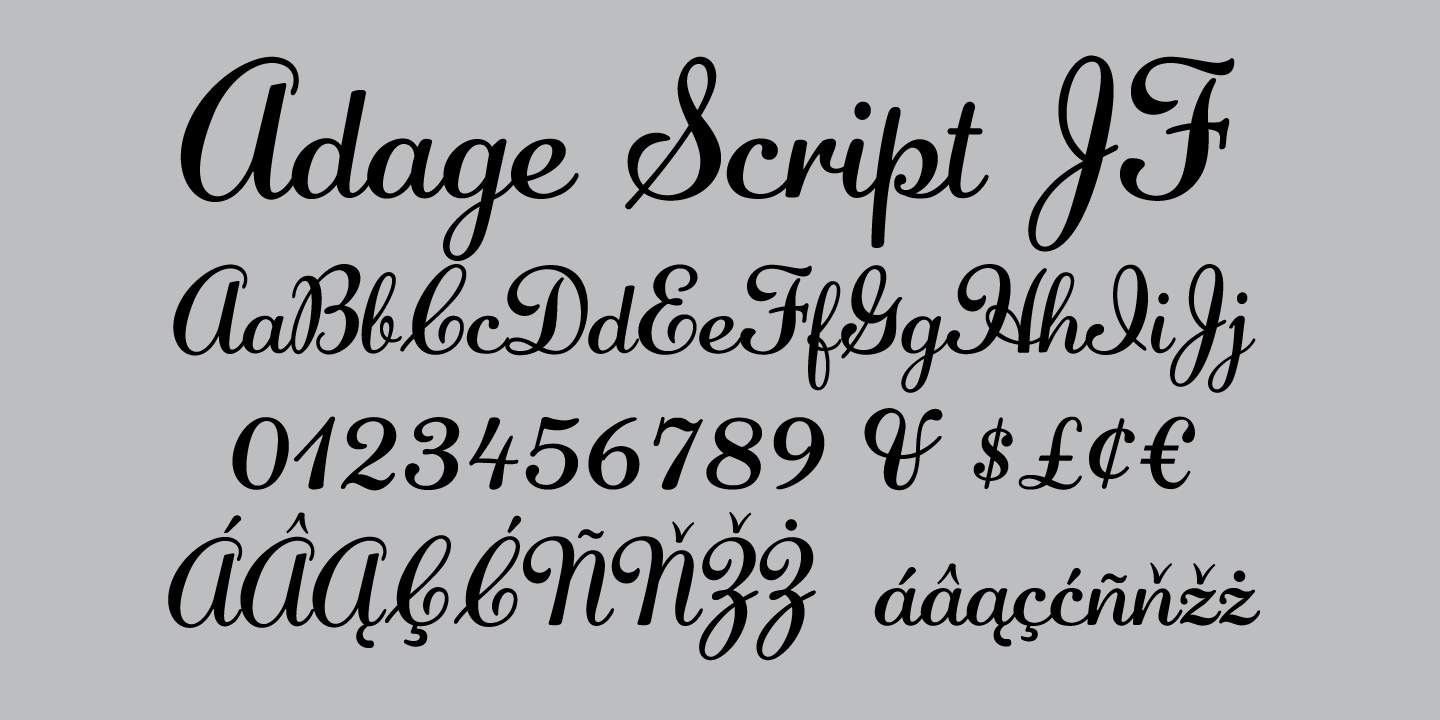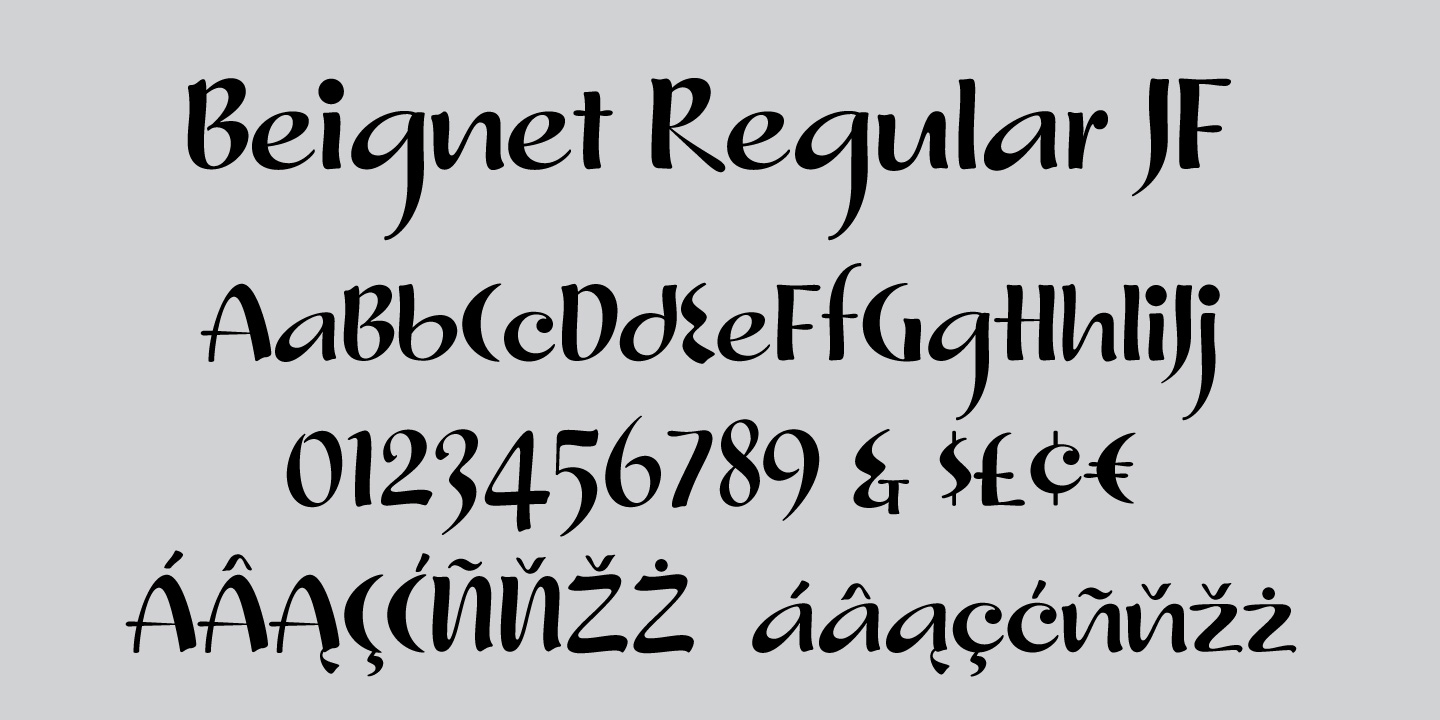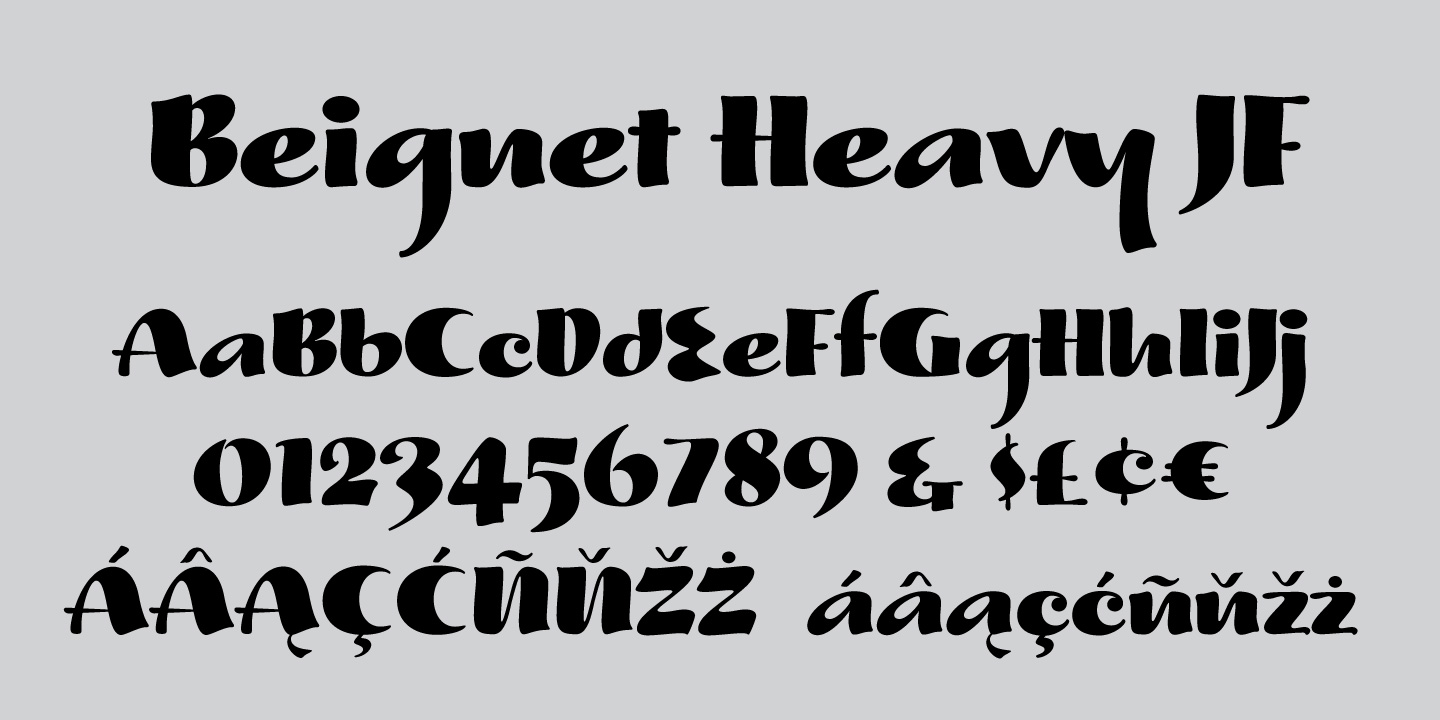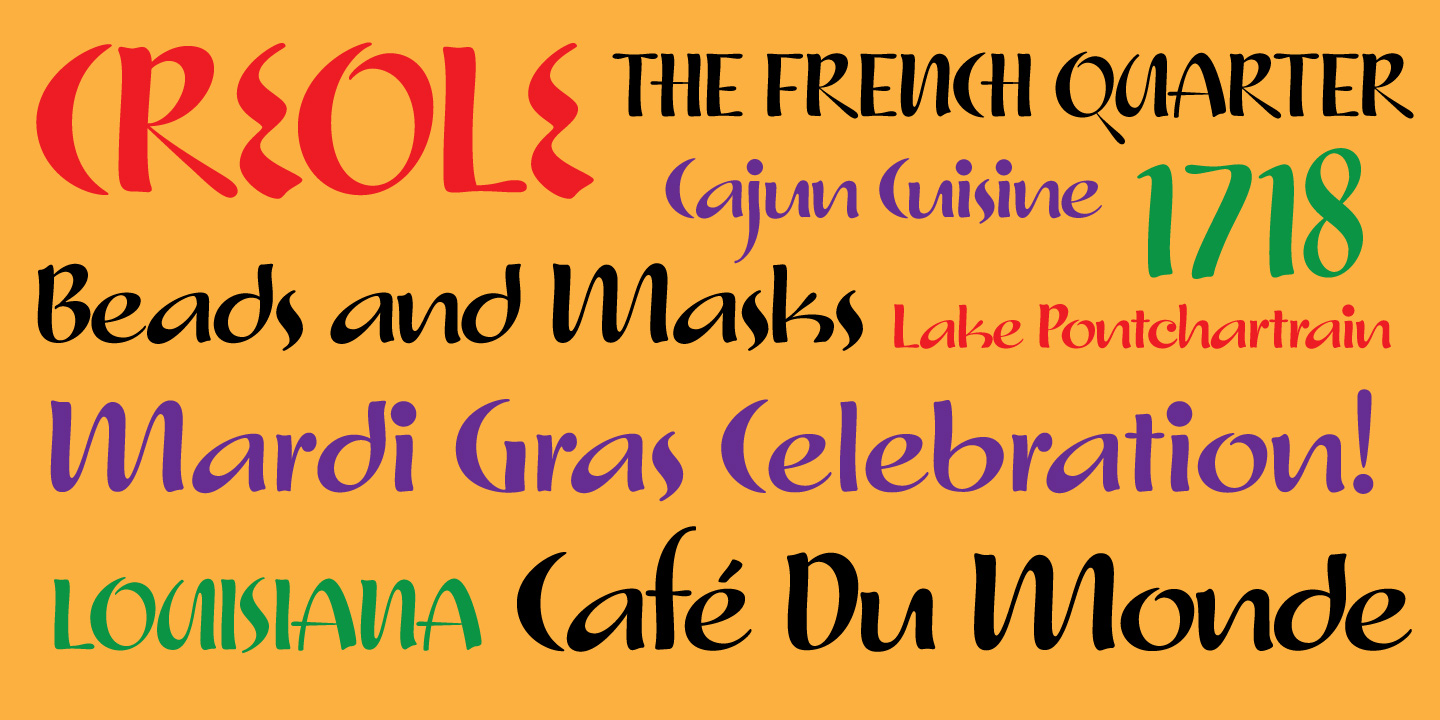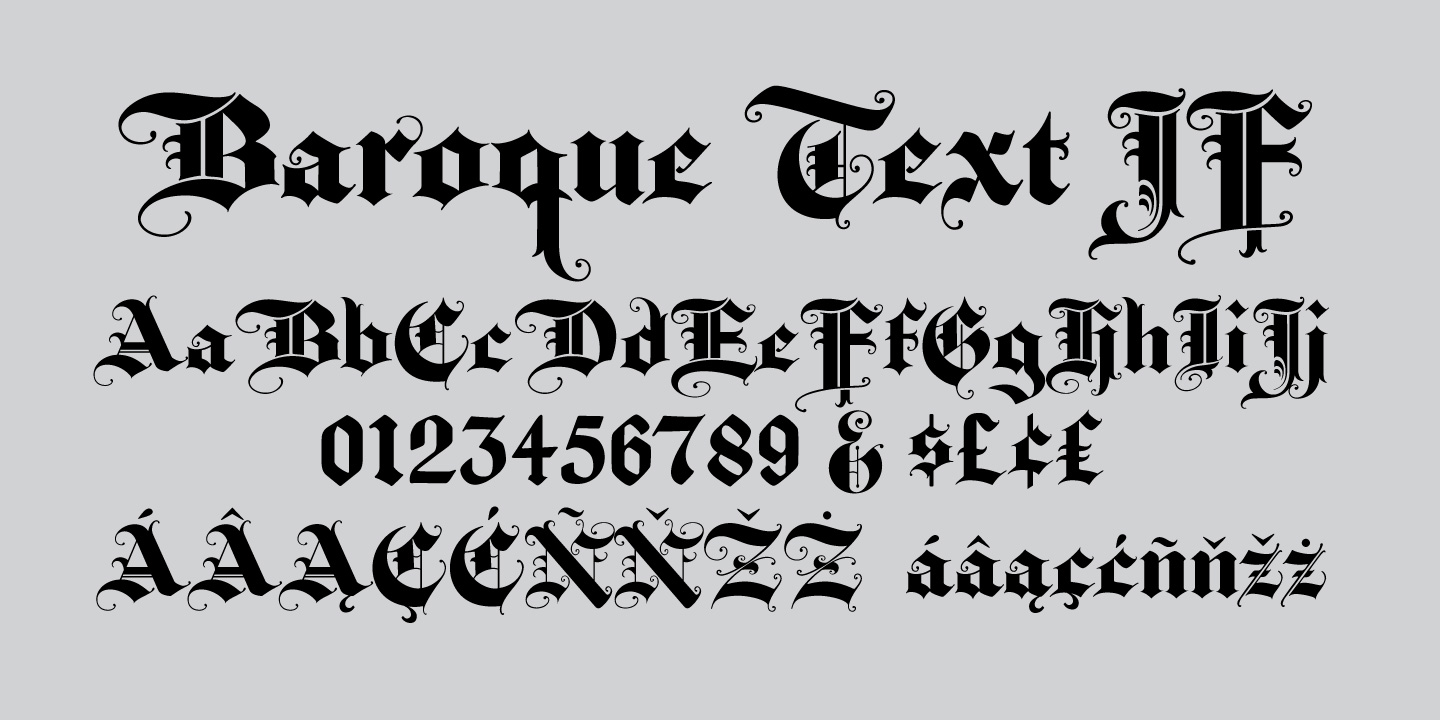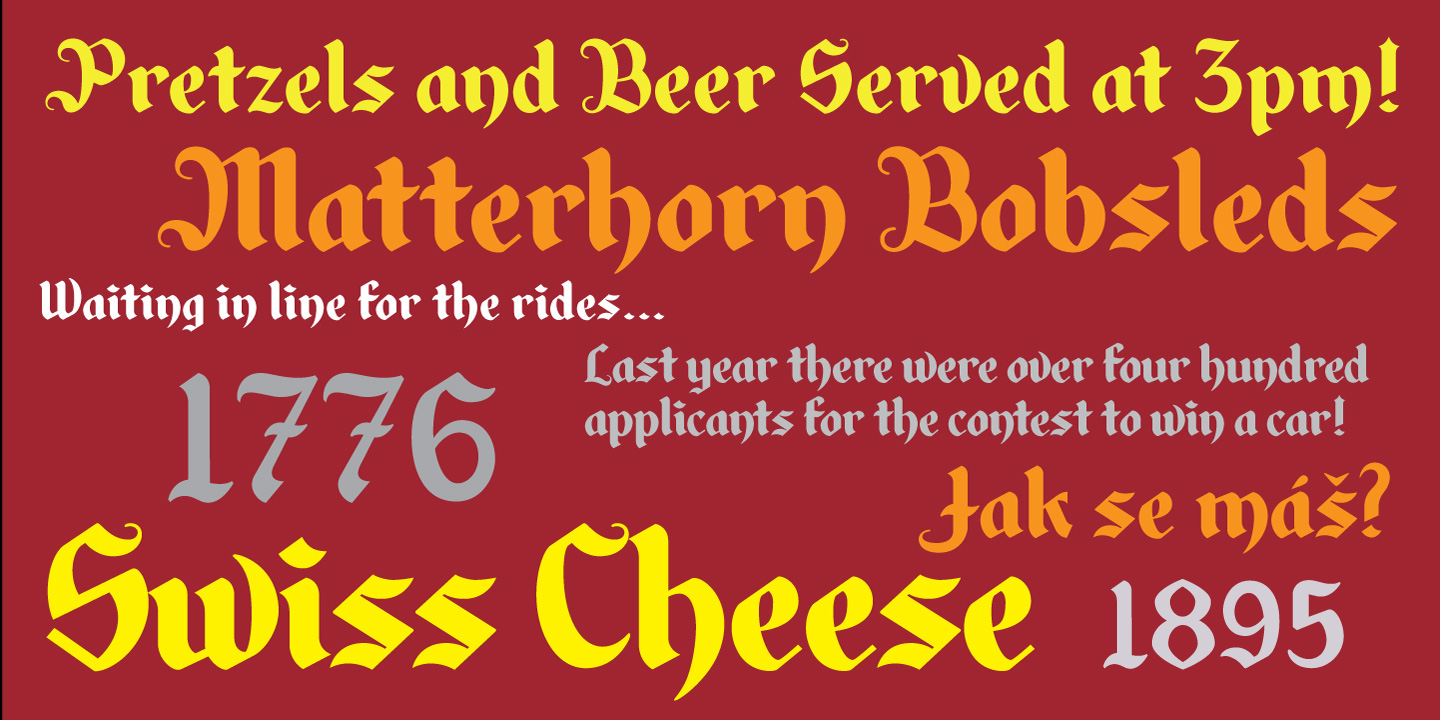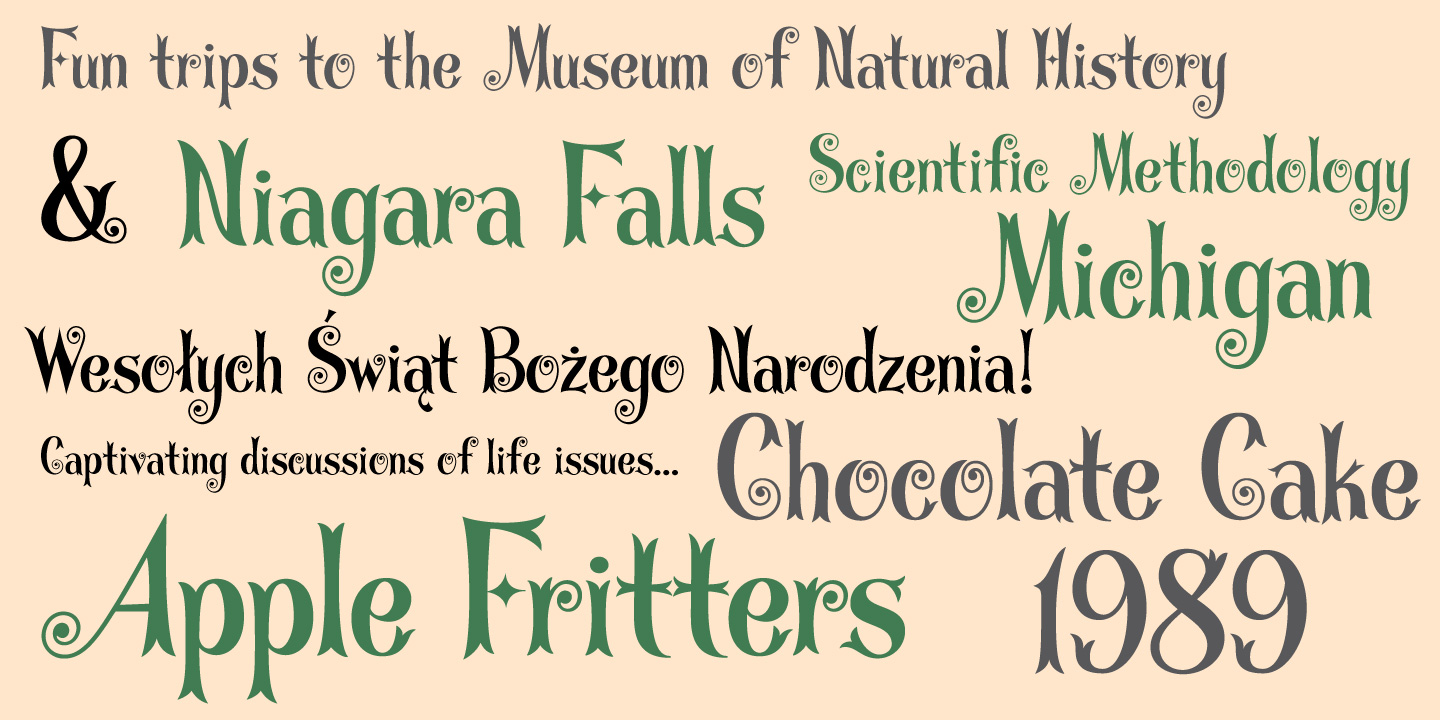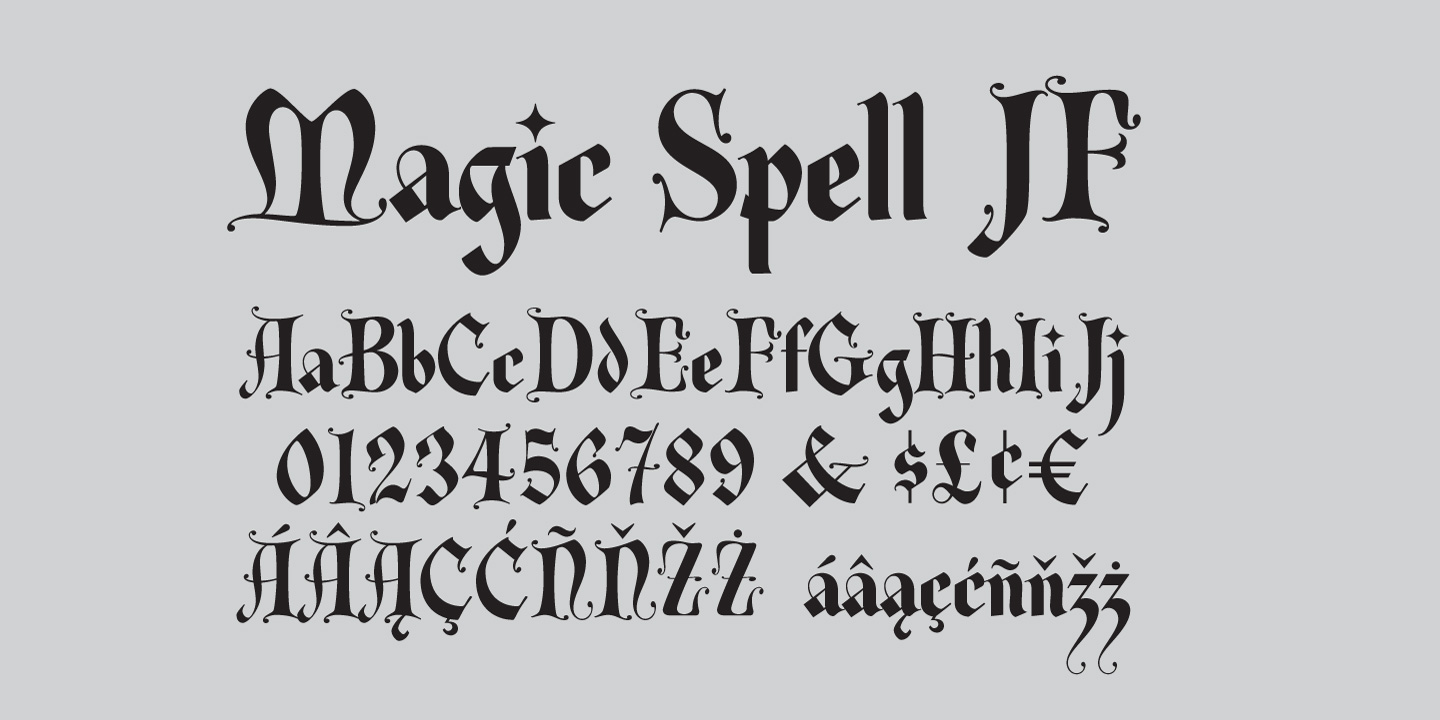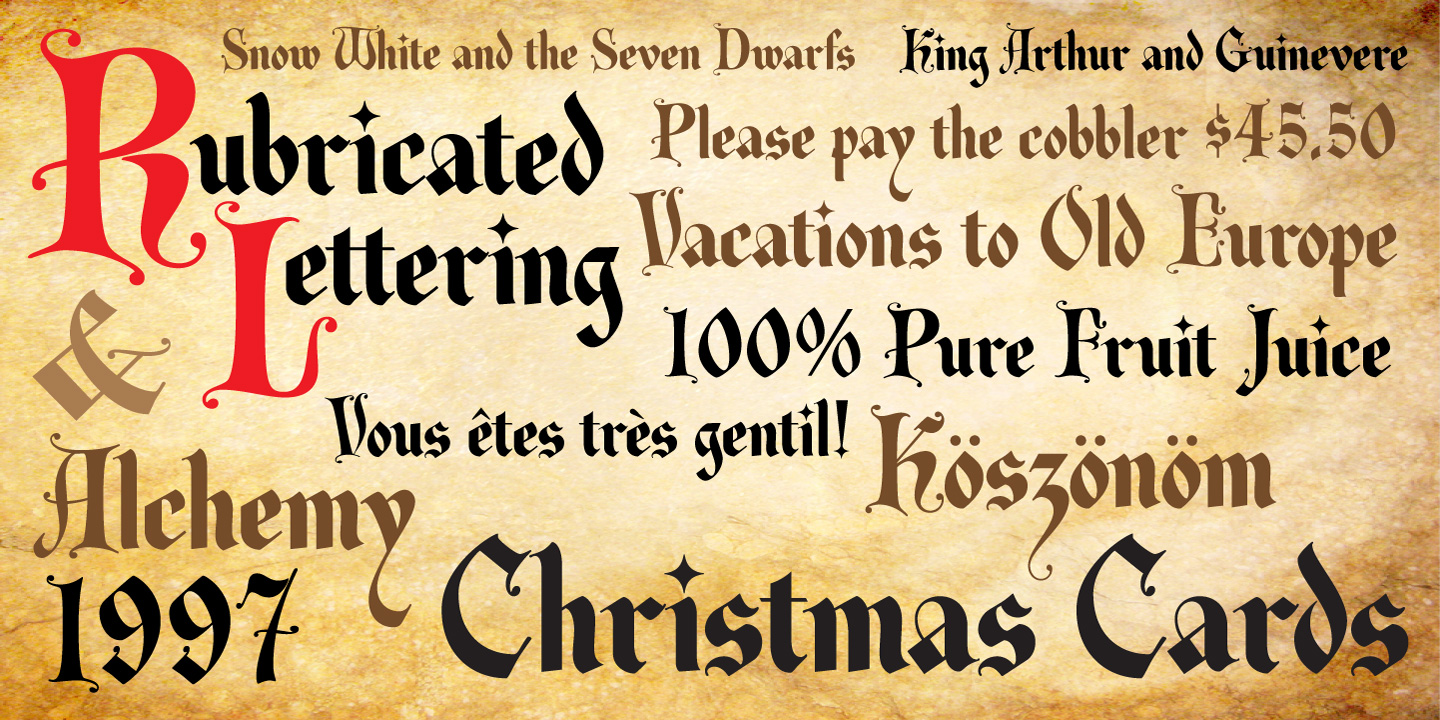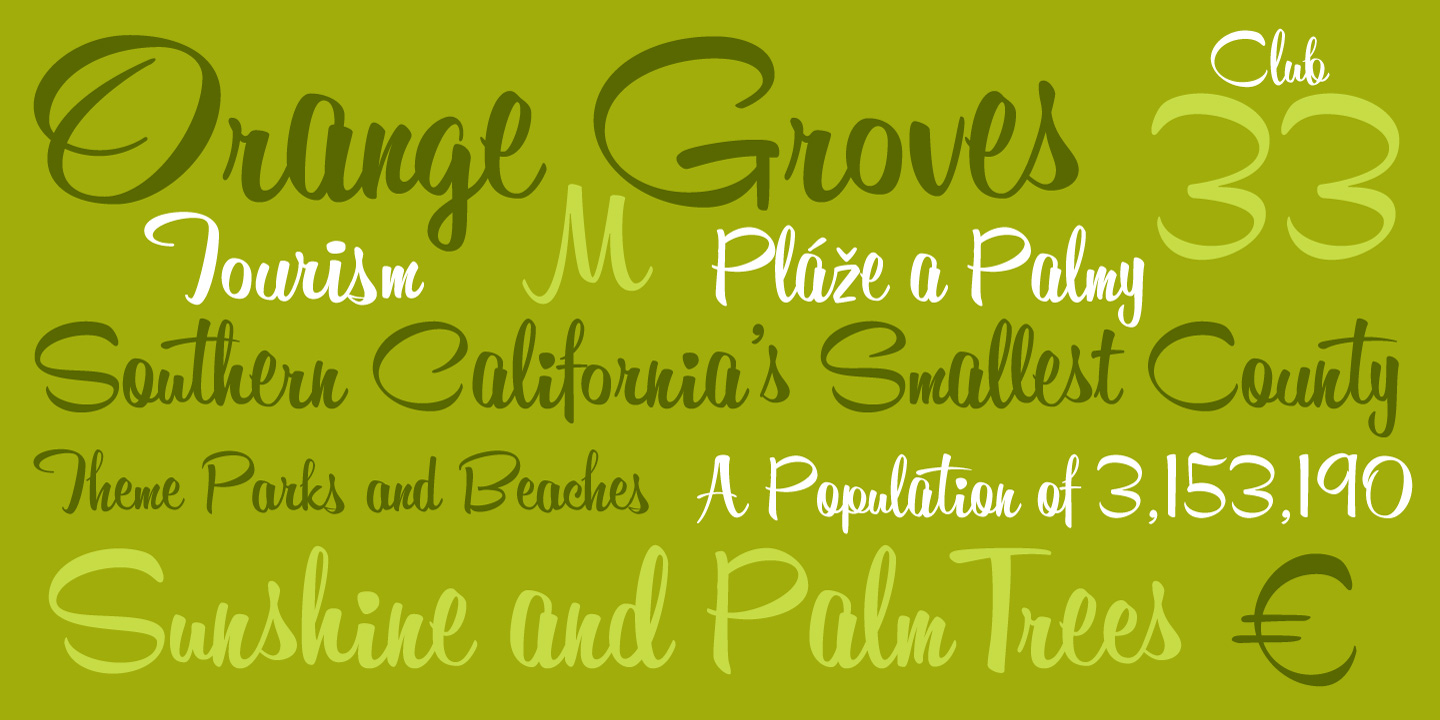
Jason Anthony Walcott of United States of America
Born: Trenton, Michigan, 1971
I created JAW Fonts, an independent type foundry, to design and sell my type. I am heavily influenced by the whimsical and often ingenious designs of hand lettering, whether it be a logo or a sign or titles from an old movie. These sources serve as the inspiration for many of my typefaces, as well as long forgotten designs that have yet to be digitized into computer typefaces. I strive to create a collection that will offer anyone who needs or uses typefaces, a unique selection of type with which to choose from. I fell in love with type when I was in school for Graphic Design and Illustration. That love continued to grow until it seemed only logical that I become a type designer myself. As with any artist I am never satisfied to stop where I am, and so I will continue to increase my library and spread the notion that too many typefaces is never enough. All JAW Fonts have now been updated to include the euro symbol.
JAW Fonts ceased operation in 2003 and Jason has reintroduced his fonts in a revised form under the new name of Jukebox Type.